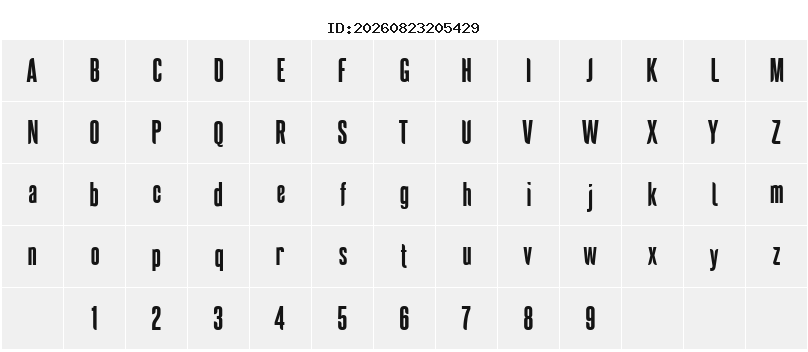
• Font Name: Saridona_personal use
• Full Font Name: Saridona
• PostScript Name: Saridona
• Designer: Yayan Anugrawan
• Manufacturer: Yayan Anugrawan
About Saridona_personal use.ttf
Saridona_personal use.ttf is a modern, elegant sans-serif font designed for ultimate readability and visual harmony. Perfect for branding, headlines, web design, and print materials.